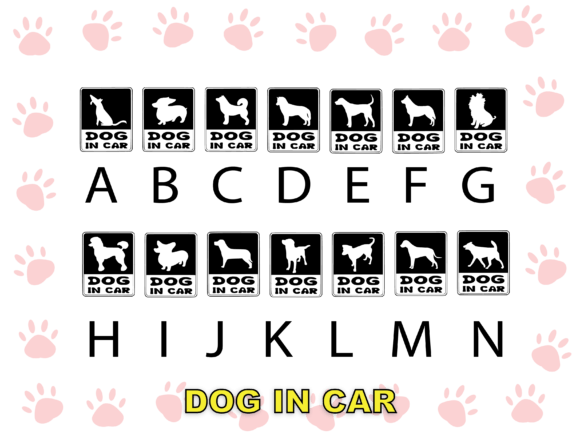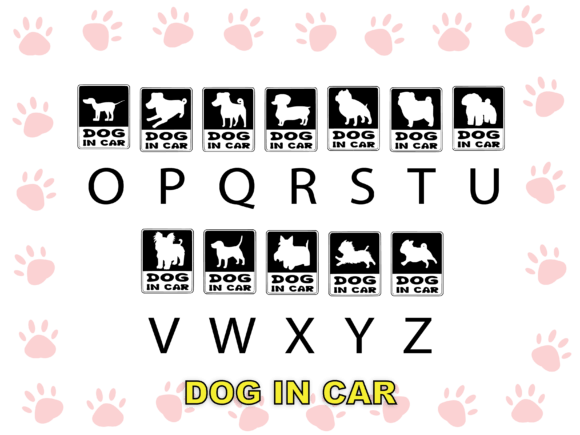
Unleash Your Creativity with Dog in Car Font: The Ultimate Dingbats Font for Dog Lovers
Are you a designer, crafter, or DIY enthusiast looking for a unique and fun font to add a personal touch to your projects? Look no further than Dog in Car Font, a modern dingbats font that features an adorable collection of dog images. With a wide range of breeds, sizes, and poses, this font is perfect for animal-themed projects, from cute puppies to fierce guard dogs.
What is Dog in Car Font?
Dog in Car Font is a dingbats font that consists of a series of images featuring dogs in various settings, all presented in a clean and modern style. The font includes a vast array of dog breeds, from popular ones like Labradors and German Shepherds to more exotic breeds like Poodles and Chihuahuas. Each image is carefully designed to showcase the unique characteristics of each breed, making it perfect for dog lovers and enthusiasts.
Key Features of Dog in Car Font
- Wide range of dog breeds: From small to large breeds, Dog in Car Font features a diverse collection of dog images that cater to different tastes and preferences.
- Various poses and settings: Each dog image is presented in a unique pose or setting, adding a touch of personality and whimsy to your projects.
- Modern and clean design: The font features a sleek and contemporary design that ensures your projects look fresh and visually appealing.
- Perfect for animal-themed projects: Whether you’re working on a project for a pet store, animal shelter, or simply a dog lover’s gift, Dog in Car Font is the ideal choice.
Use Cases for Dog in Car Font
Dog in Car Font is an incredibly versatile font that can be used in a wide range of projects, including:
- Stationery and greeting cards: Add a personal touch to your cards and stationery with adorable dog images.
- Signs and posters: Create eye-catching signs and posters for pet-related businesses or events.
- Social media graphics: Use Dog in Car Font to create engaging social media graphics that are sure to delight dog lovers.
- Crafting and DIY projects: Add a unique touch to your crafting and DIY projects, such as scrapbooking, sewing, or woodworking.
Why Choose Dog in Car Font?
With so many fonts available, why choose Dog in Car Font? Here are just a few reasons:
- Unique and fun: Dog in Car Font offers a refreshing change from traditional fonts, adding a playful touch to your projects.
- High-quality design: Each image is carefully designed to ensure high-quality and crisp visuals.
- Easily customizable: The font is easy to use and customize, making it perfect for designers and non-designers alike.
Dog in Car Font is a one-of-a-kind dingbats font that is sure to delight designers, crafters, and dog lovers alike. With its wide range of dog breeds, poses, and settings, this font is perfect for animal-themed projects. Whether you’re looking to add a personal touch to your stationery, create eye-catching signs, or simply want to indulge in some dog-themed fun, Dog in Car Font is the ultimate choice. So why wait? Unleash your creativity and get ready to make your projects go barking up the right tree!